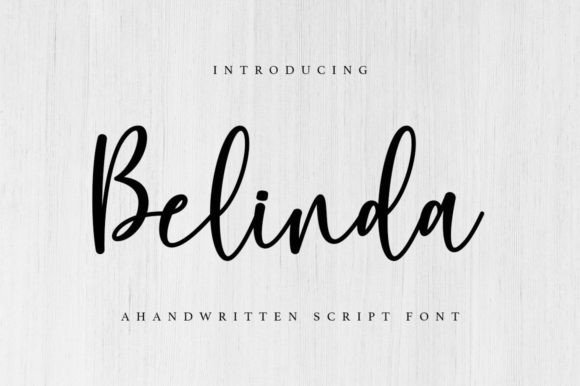
The Perfect Script for Your Next Design Project
Have you ever been working on a design project, pouring your heart and soul into it, and then suddenly, you need that one perfect font to bring it all together? That’s exactly what happened to me when I stumbled upon the enchanting Belinda Font.
This romantic and sweet calligraphy typeface is a game-changer for designers. With characters that dance along the baseline, it adds a luxurious touch to any design project. Whether you’re creating a wedding invitation, a menu for a high-end restaurant, or a branding campaign for a luxury fashion brand, the Belinda Font is sure to elevate your design to the next level.
As a designer, you know how valuable it is to have a font that can make a statement. The Belinda Font is not just a pretty face; it’s a powerful tool that can help you convey your message and leave a lasting impression on your audience.
Belinda Font Key Features
- Unique Characteristics: The Belinda font features a modern, elegant, and refined design with rounded edges, making it suitable for both body text and headlines.
Belinda Font Review
Overall, I found the Belinda font to be a solid choice for a variety of design projects, particularly those requiring a classic, elegant feel.
- The font’s refined lines and subtle curves give it a sophisticated, high-end appearance.
- Belinda is highly legible, even at smaller font sizes, making it suitable for body text and titles.
- The font’s wide range of weights (from Light to Extra Bold) provides ample flexibility for designers to achieve the desired visual impact.
- The font’s classic feel makes it a great choice for projects requiring a timeless, nostalgic look.
- The font may not be suitable for projects requiring a bold, modern, or edgy feel.
- The font’s subtlety may make it difficult to stand out in crowded or busy design environments.
- The font’s classic feel may not appeal to designers seeking a more contemporary or avant-garde look.
Overall, I think Belinda is a great choice for designers seeking a classic, elegant font. While it may not be the best fit for every project, it’s certainly a solid addition to any designer’s toolkit.